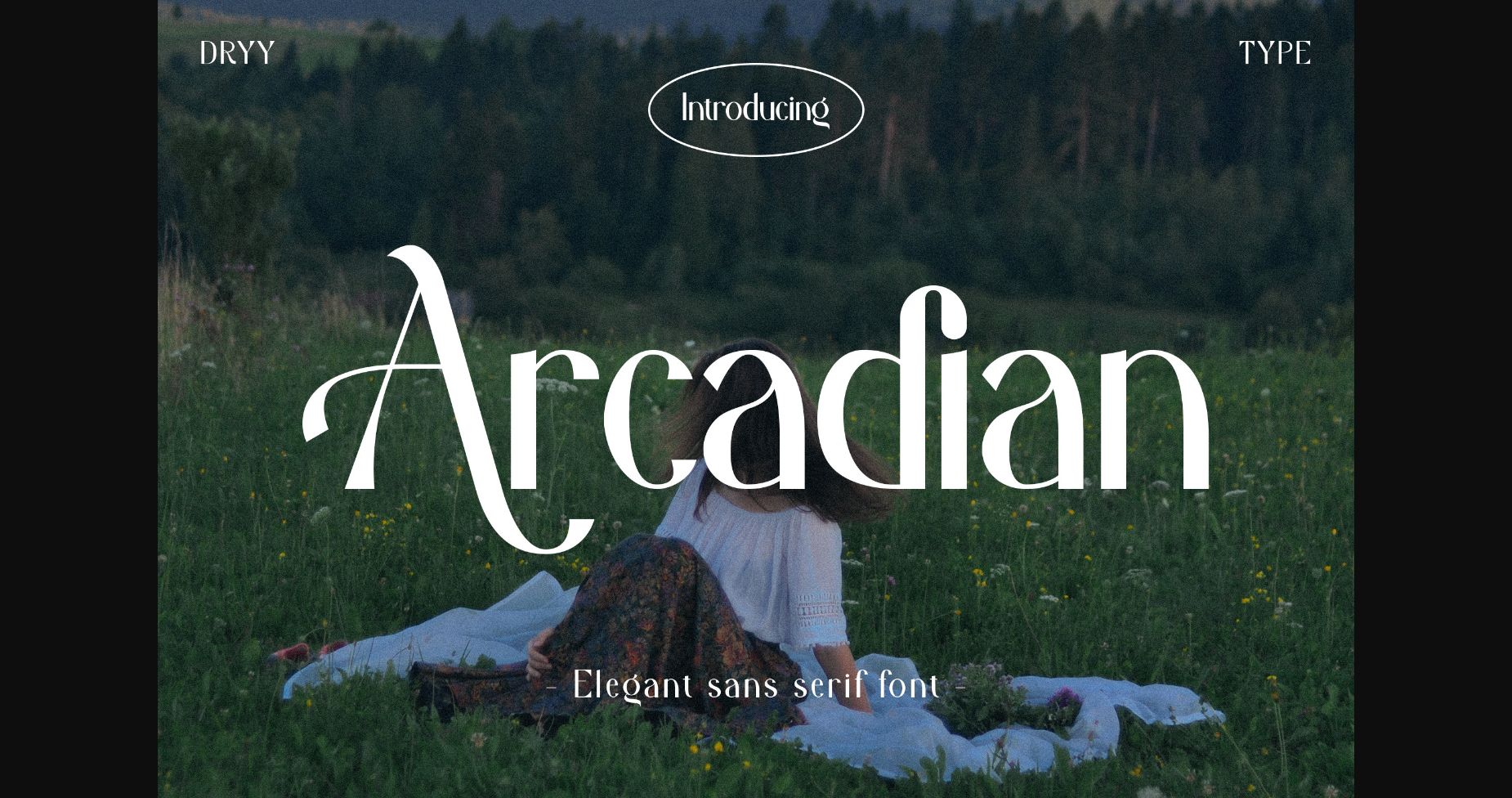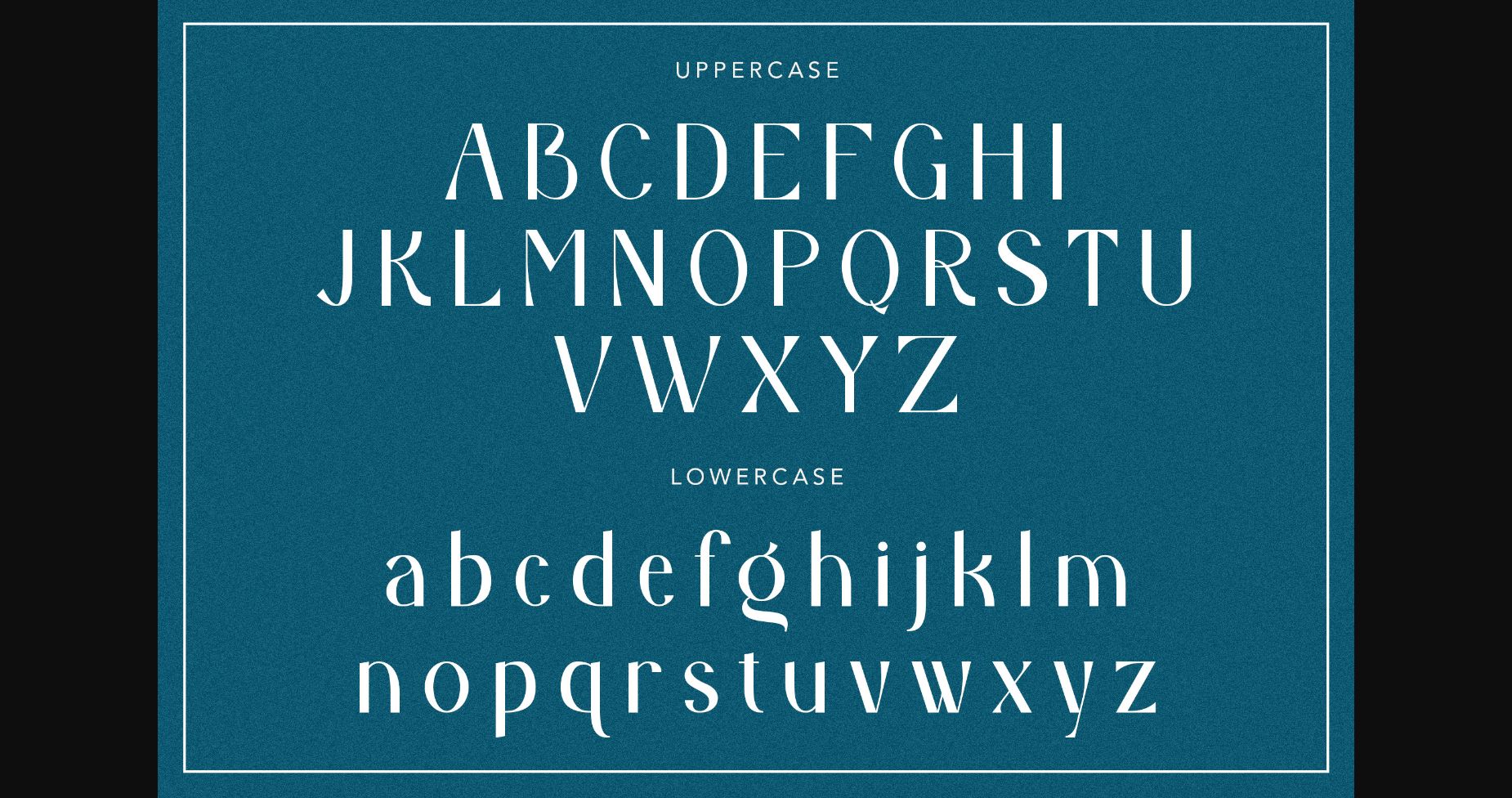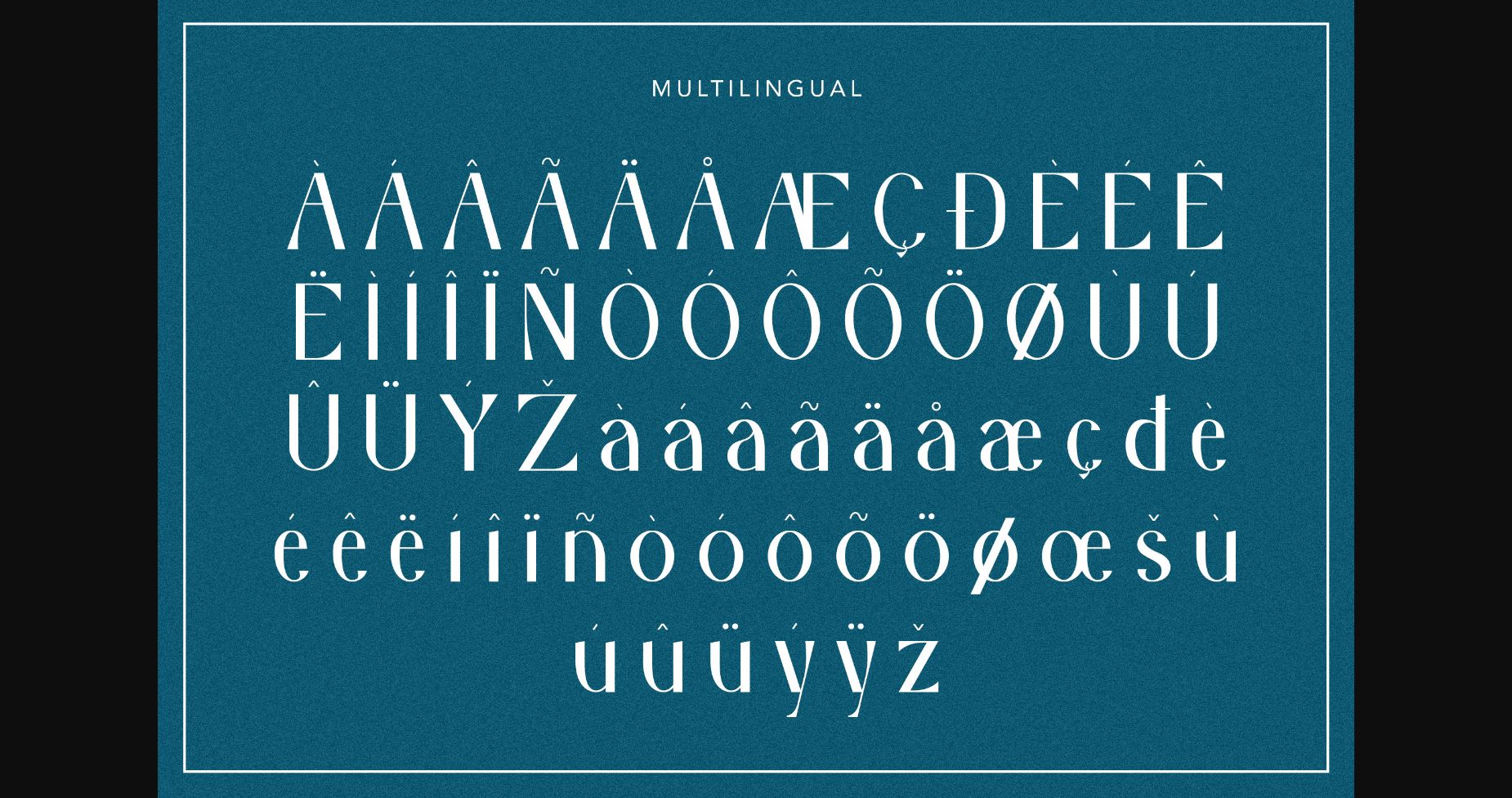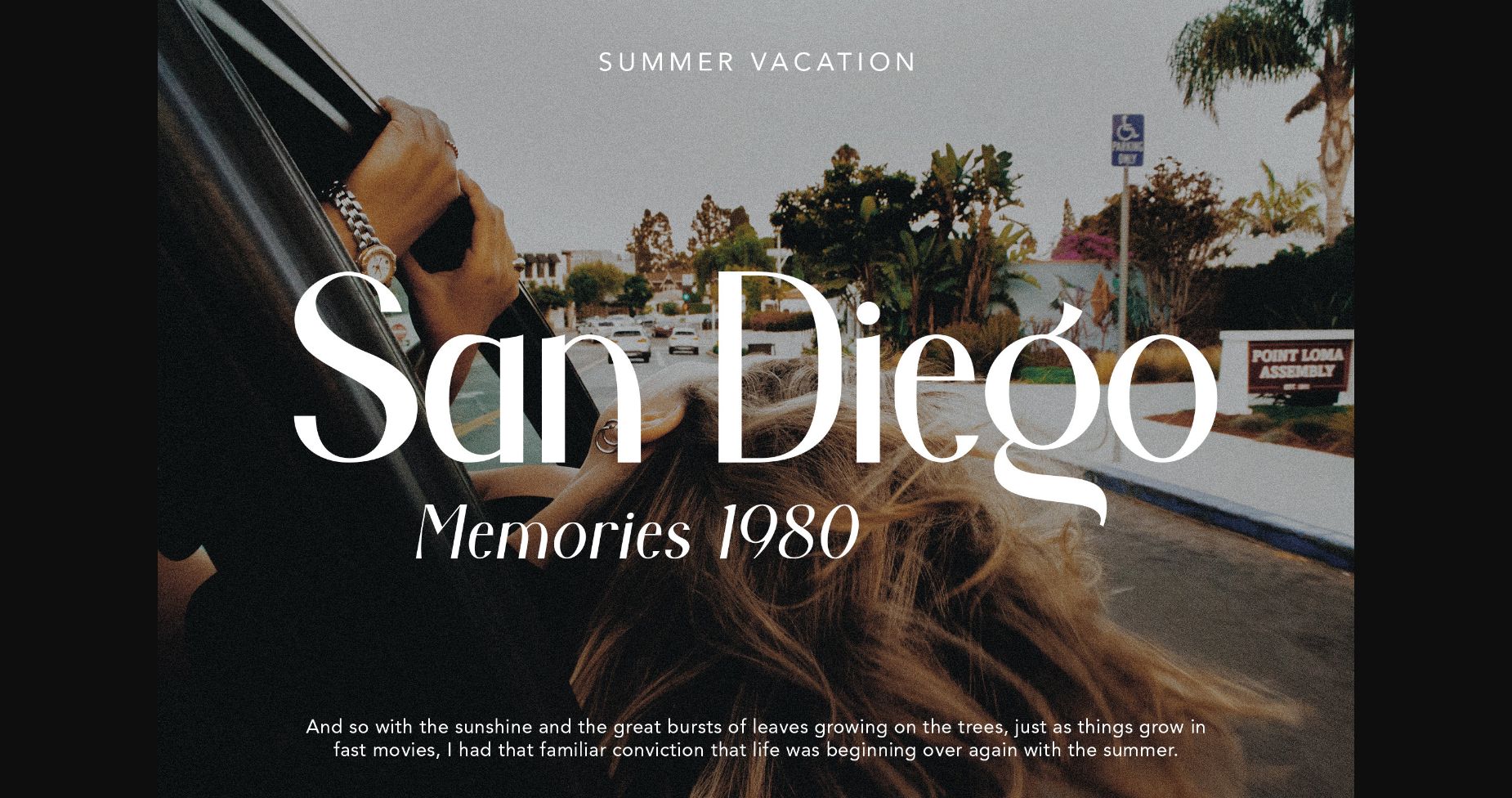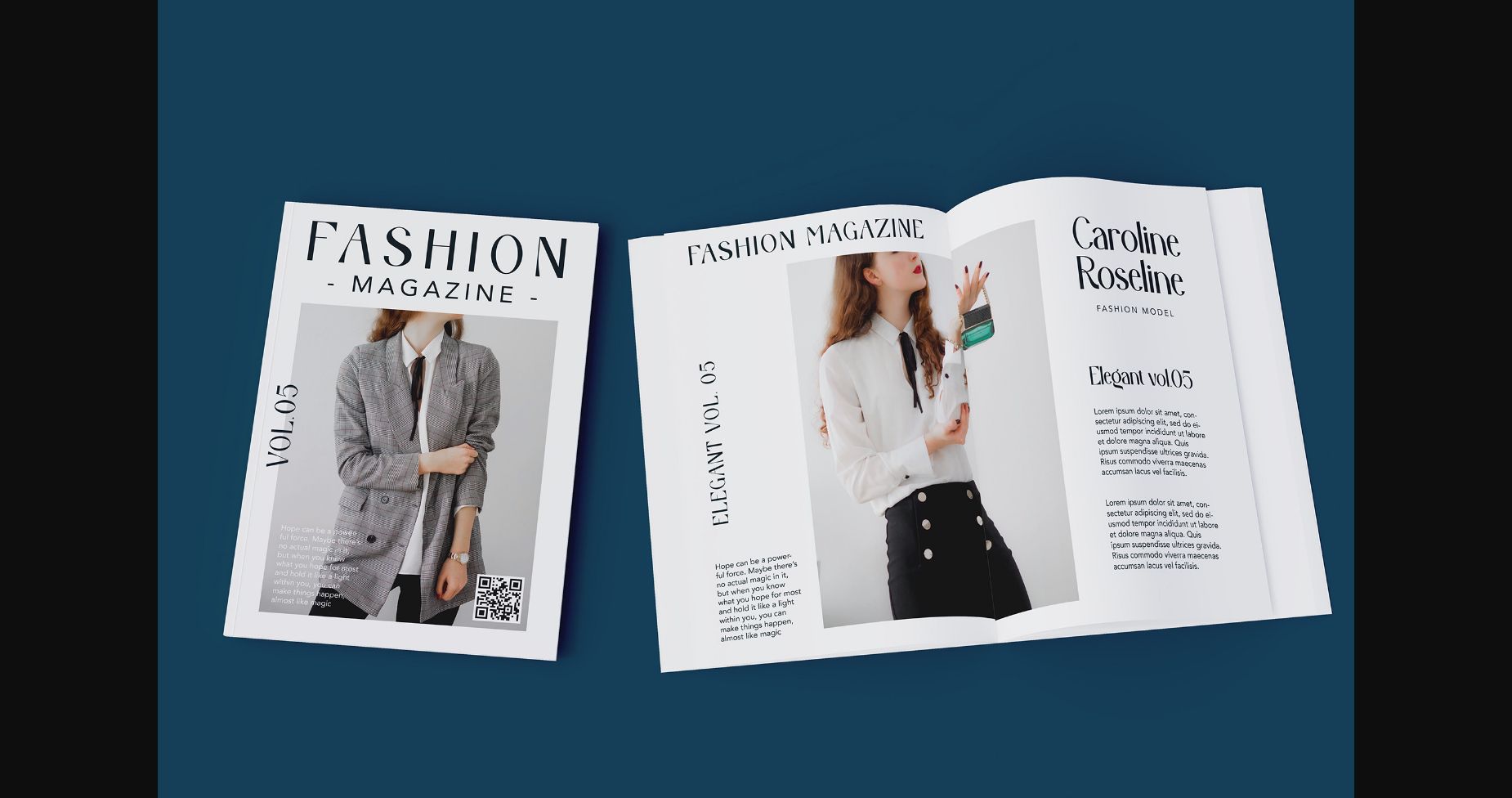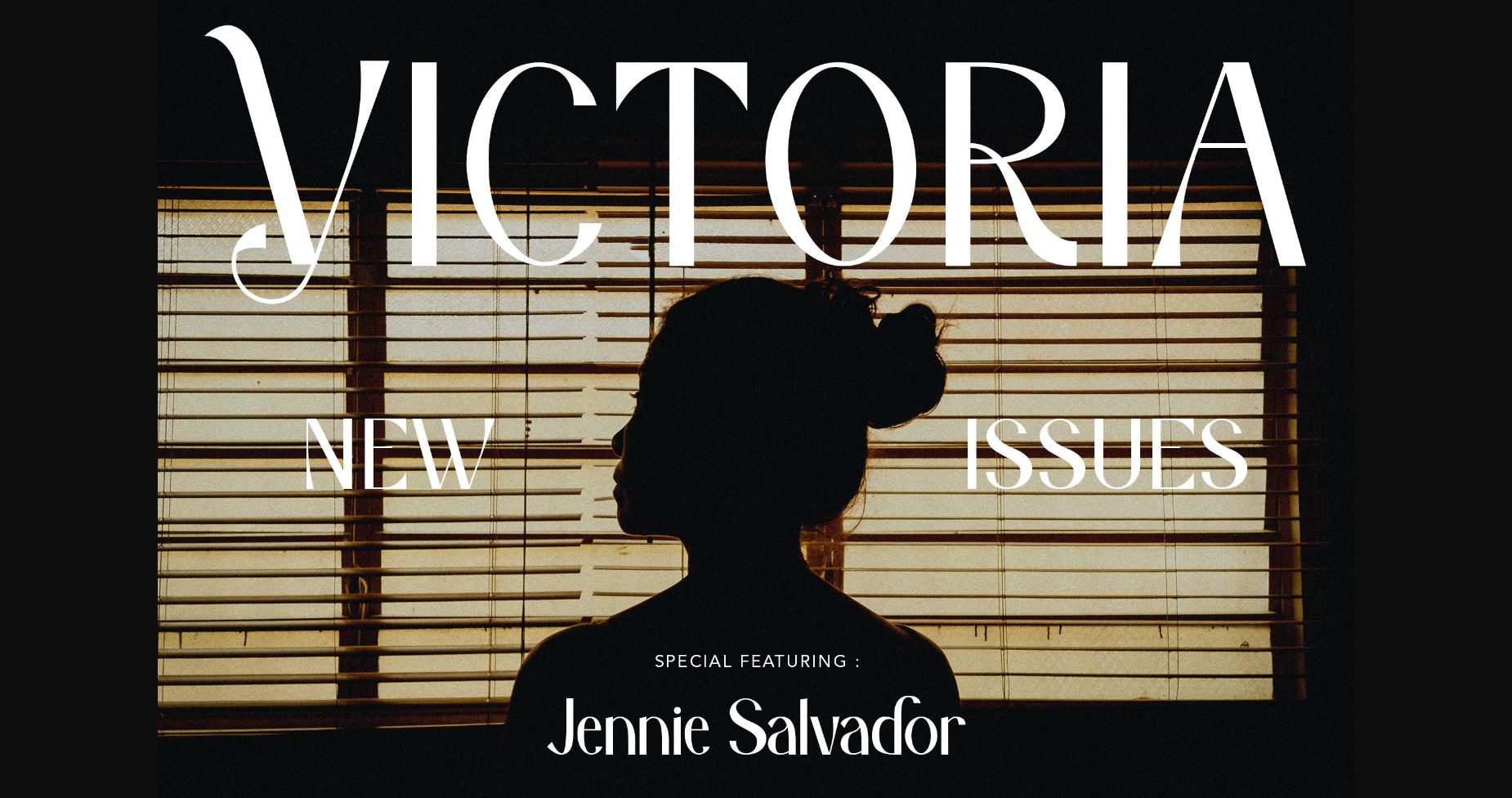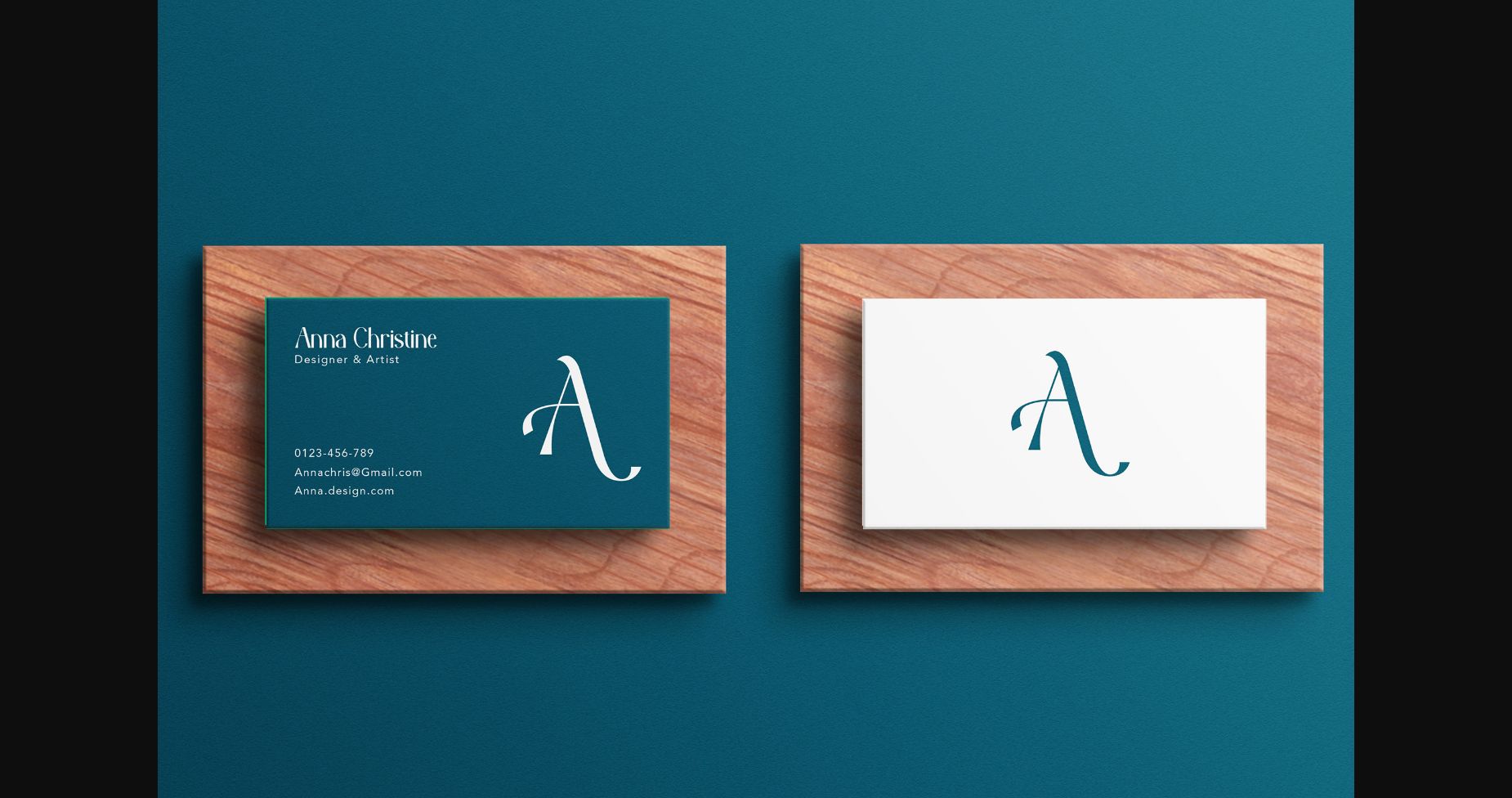
About Arcadian Font
Arcadian is an elegant and minimalist sans-serif font. Its clean lines and subtle curves create a timeless and sophisticated look, perfect for any project. With a wide range of weights and styles, Aurelia is versatile and adaptable, adding a touch of modernity to any design.